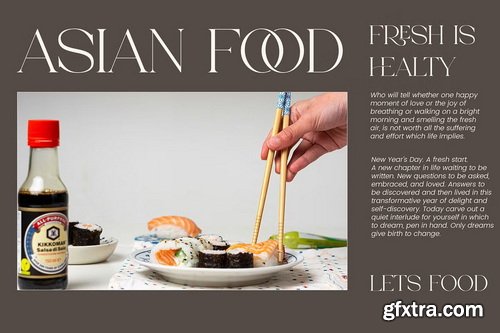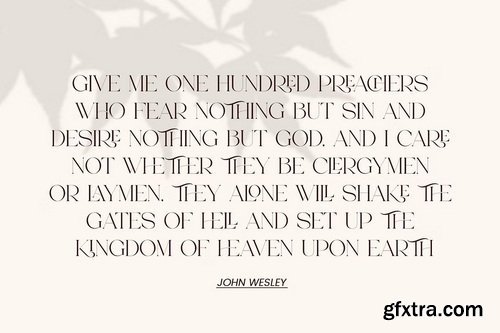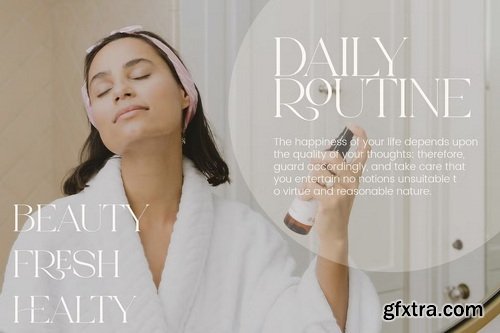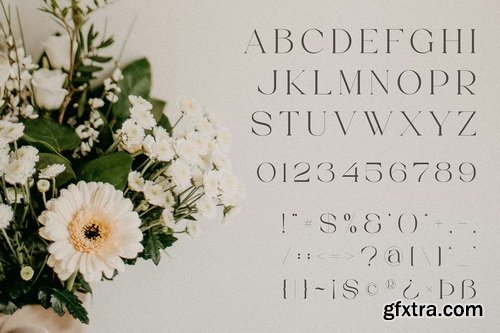
CreativeMarket - Thorin Beautiful Serif Font
Thorin Stylish Ligature Typeface, inspired by the famous minimalist logo perfect for the purposes of designing templates, brochures, videos, advertising branding, logos and more.
• Ligatures
• International Accent